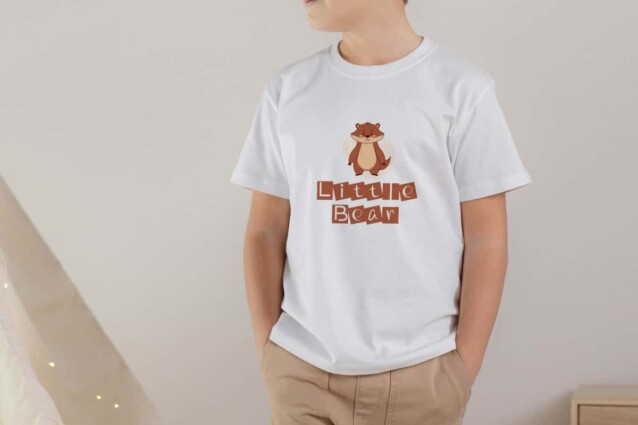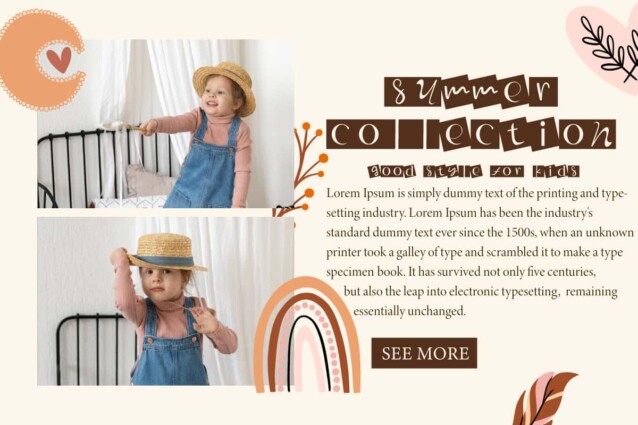
Random Box Font
Random Box Font is an adorable decorative display font with a variety of squares on each letter, presenting a standout appearance. The shape of the alphabet is also made random to add a unique and interesting impression. It’ll be perfect for whatever your project is, including brand logos, brochure, greeting cards, invitations, label, packaging design, poster, quotes, screen print, social media, stationery, stickers, title, website, and more.